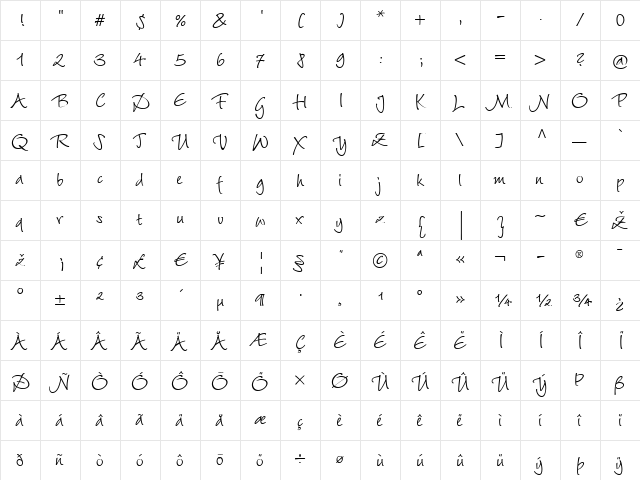
LTWiesbadenSwing Regular
Design Context for LTWiesbadenSwing Typeface
LTWiesbadenSwing is a composed and adaptable typeface that performs quietly and consistently across a wide range of design contexts.